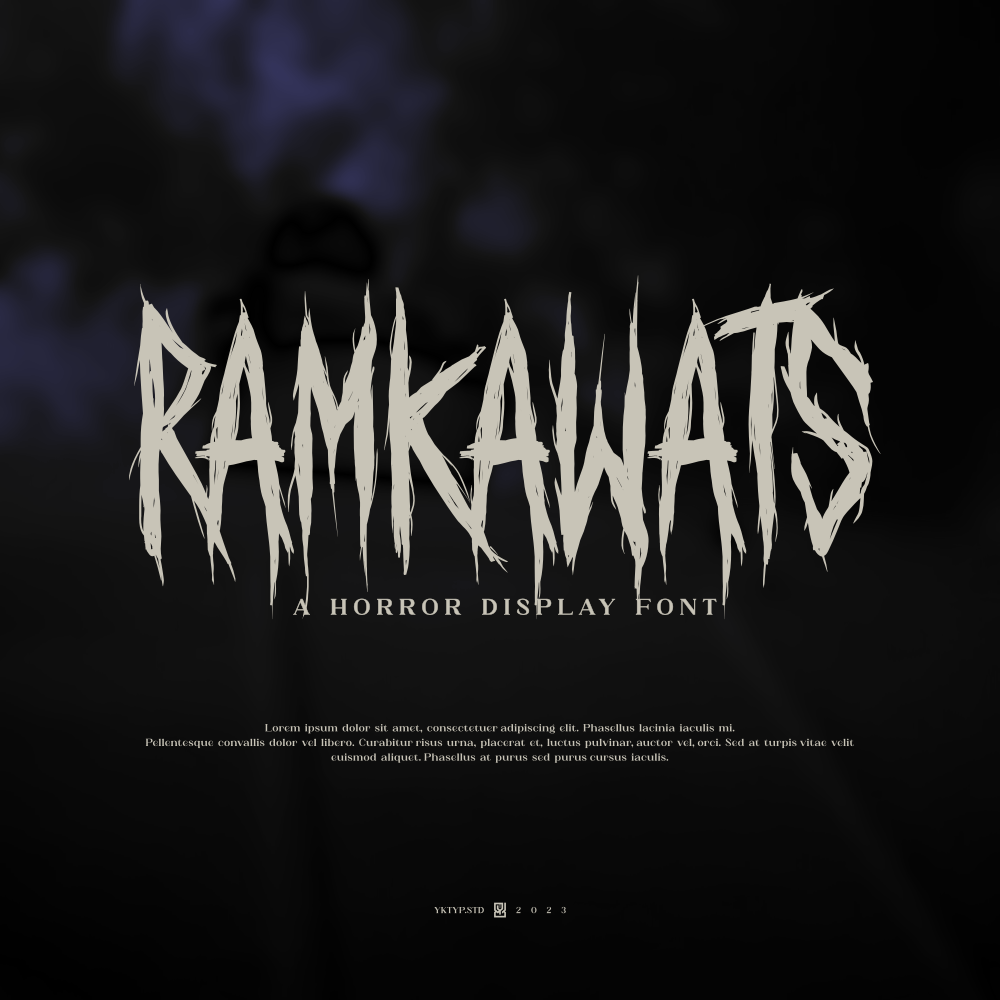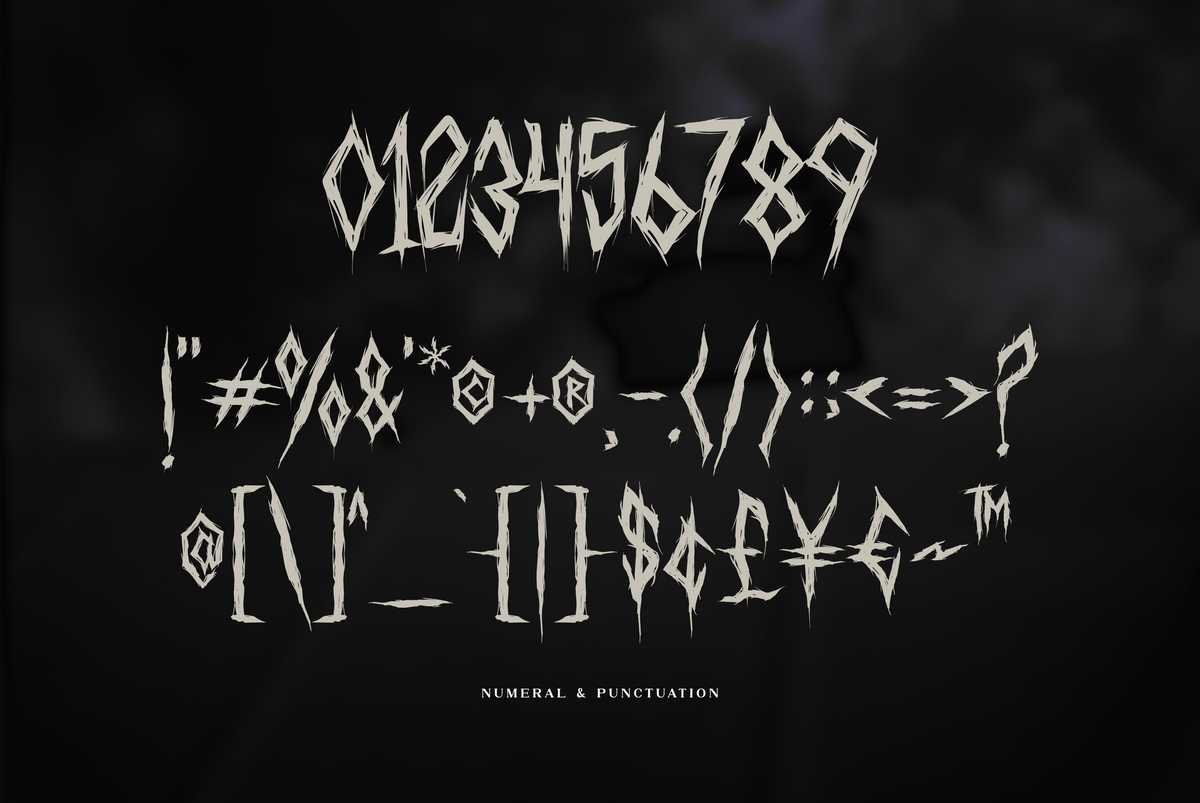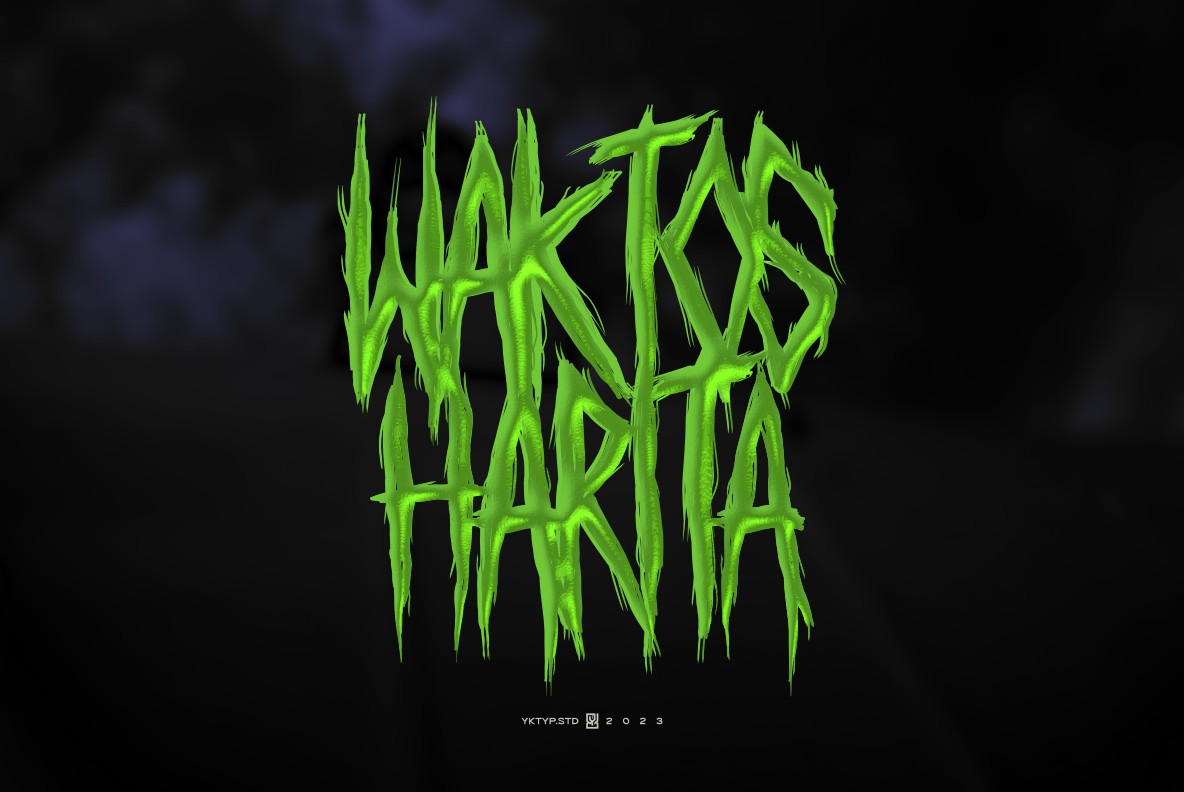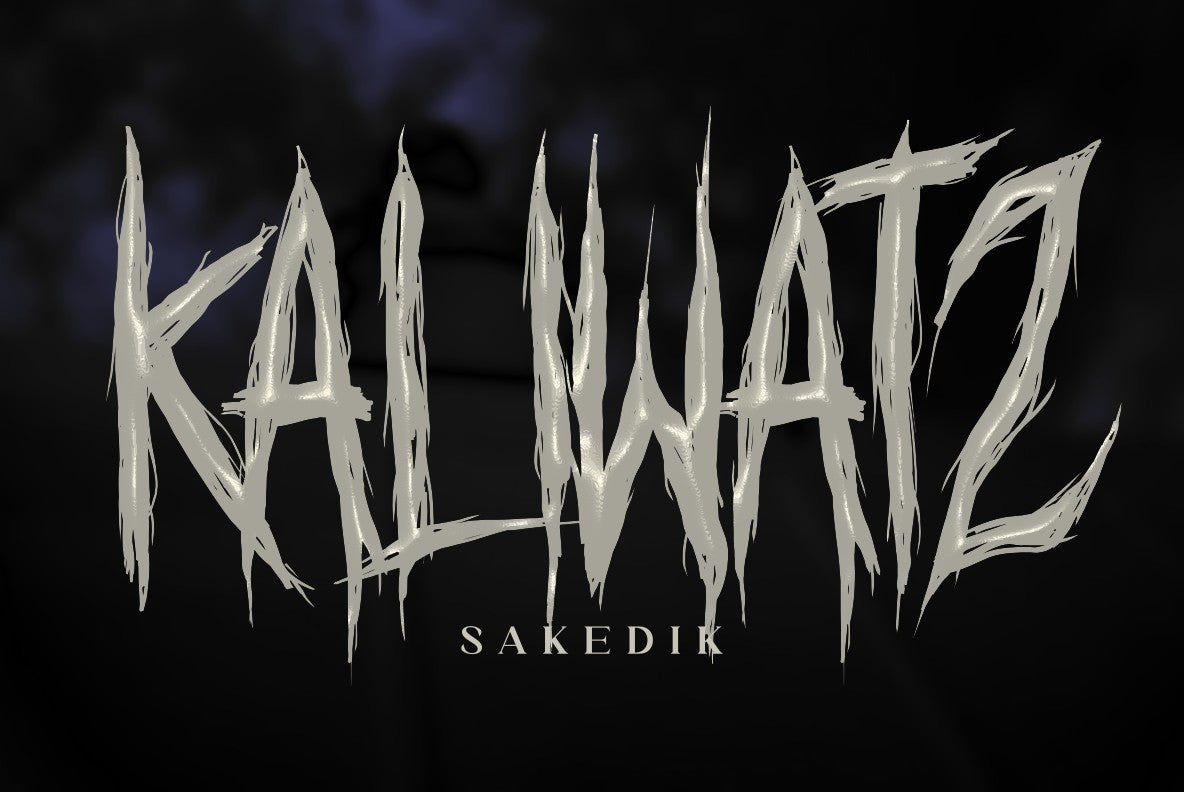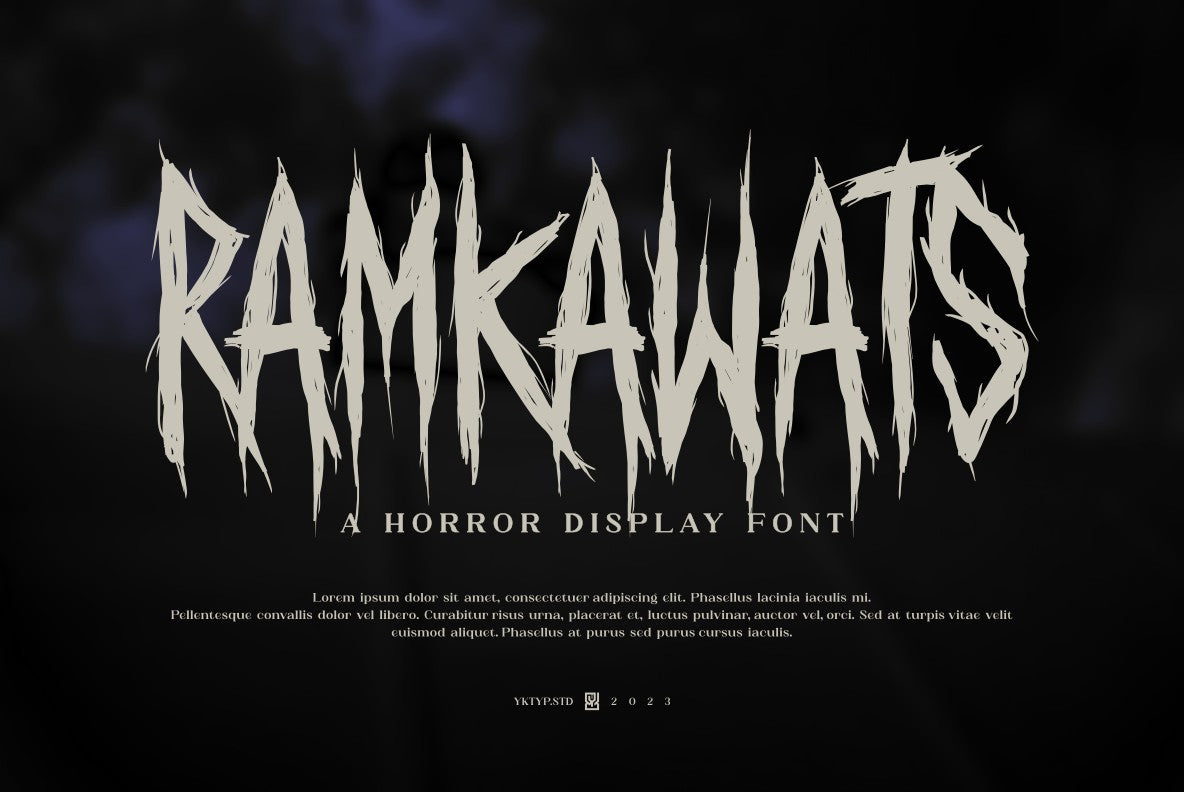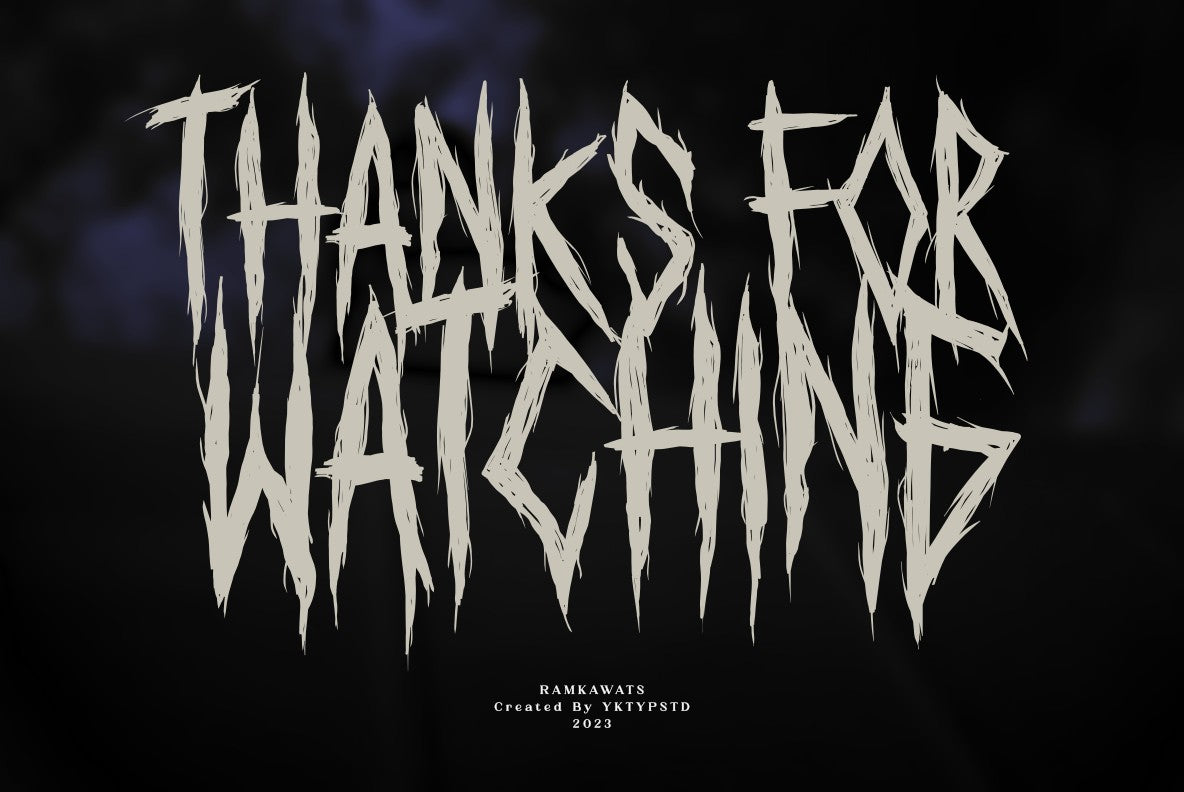
Ramkawats – Horror display font
Get ready to give a stunning makeover to your designs with this horror display font!
Ramkawats – Horror display font
Ramkawats is the perfect choice for Bands, logotypes, clothing, album covers, brands, Merchandise, posters, horror films, and more!
• All caps characters (A–Z)
• Numbers & punctuation
Ramkawats is a horror-style display font that includes all caps characters (A–Z), numbers, and punctuation. It is provided in OpenType (.otf) and TrueType (.ttf) formats.